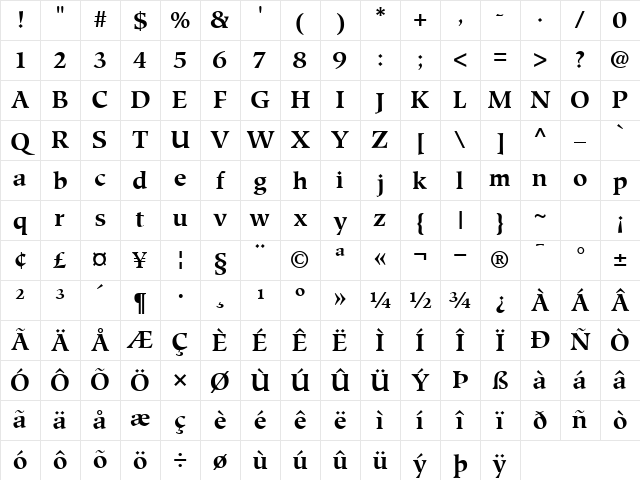
GlossarySSK Bold Free Font
GlossarySSK Bold
GlossarySSK Family
Complete GlossarySSK Bold glyph index. Displaying only characters natively supported by GlossarySSK Bold font.
Design Context for GlossarySSK
GlossarySSK is a composed and adaptable typeface that performs quietly and consistently across a wide range of design contexts. Its bold stroke weight gives it real presence on the page.